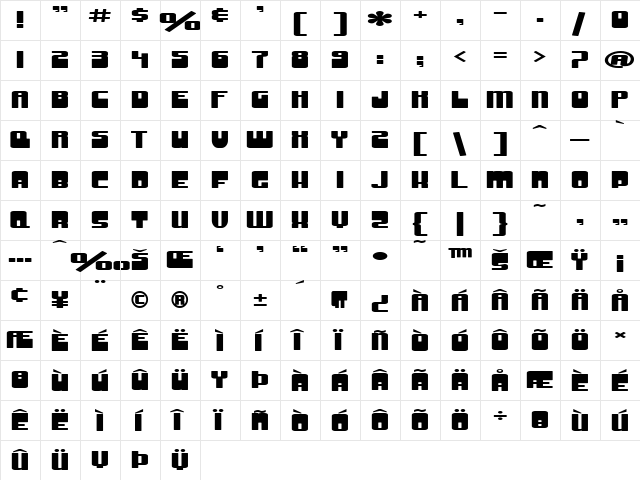
SF Groove Machine ExtUpright Regular
Design Context for SF Groove Machine ExtUpright Typeface
SF Groove Machine ExtUpright is a composed and adaptable typeface that performs quietly and consistently across a wide range of design contexts.